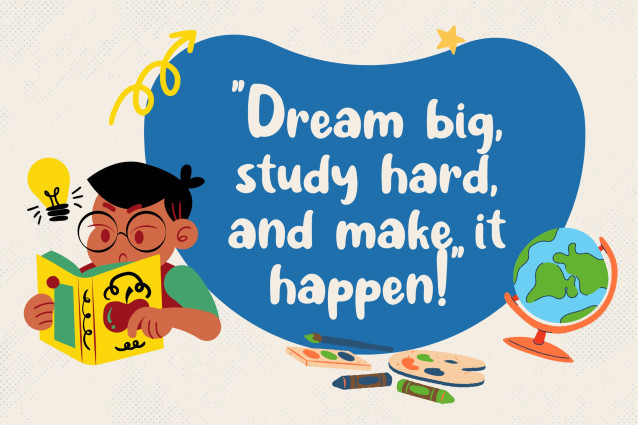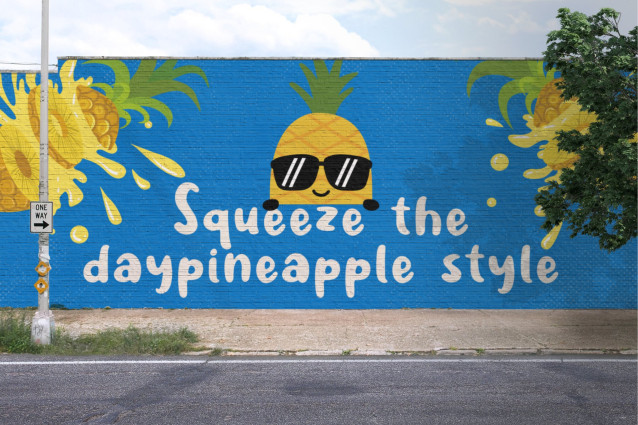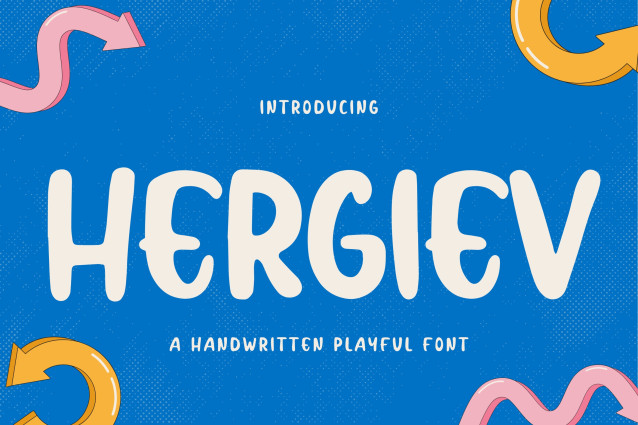
Hargiev Playful Font
Hargiev Playful Font is a naturally handwritten font with a playful and fun style. Its organic and simple design makes it perfect for various cheerful and lively design projects.
This font is ideal for kids-themed projects, illustrations, casual branding, product packaging, and social media designs that aim to stand out with a vibrant and joyful feel. The fluid and relaxed letterforms create a friendly impression, making it perfect for designs that convey happiness and warmth.
With its unique character and natural flow, Hergiev strikes a balance between beautiful handwriting and excellent readability. This font is a great choice for creating expressive designs with an authentic creative touch. Use Hergiev to add a natural and cheerful touch to your designs!